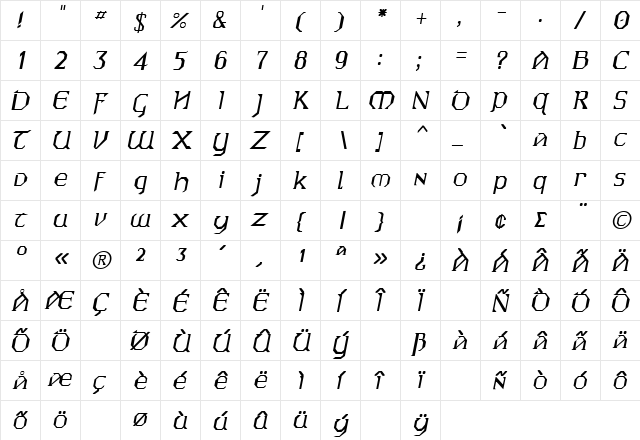
Query Oblique
Design Context for Query Typeface
Query is a composed and adaptable typeface that performs quietly and consistently across a wide range of design contexts. Its italic angle brings a sense of urgency and motion to the letterforms.
Pro Tip: Use Query for emphasis, pull quotes, and subheadings where its slanted energy can add rhythm to the layout.